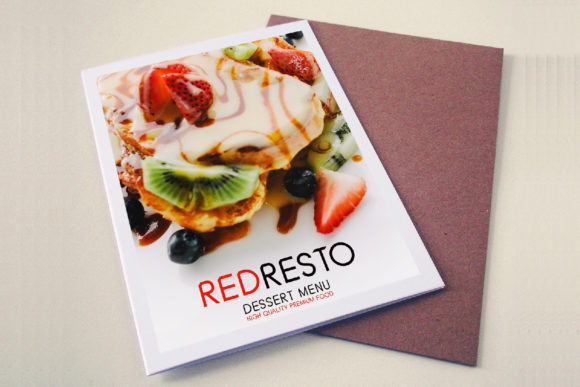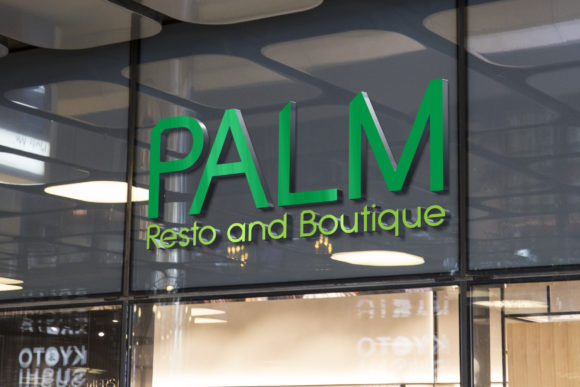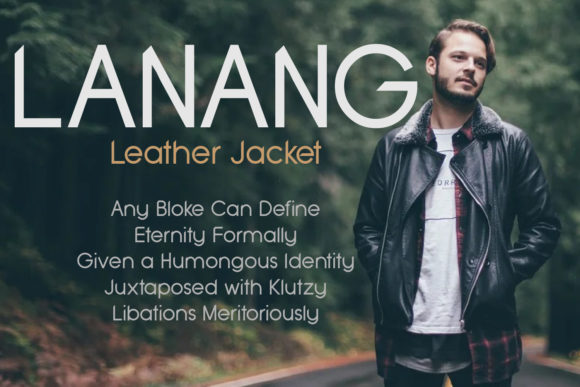
Unlock Your Creativity with Four Play Font
Introducing Four Play Font, a modern and simple lettered sans serif font designed to elevate your creative projects. Its clean lines and versatile style make it the perfect addition to any design, whether you’re working on a logo, brochure, or social media campaign. By incorporating Four Play Font into your designs, you’ll notice a significant boost in visual appeal and overall impact.
Four Play Font Key Features
- Font Family: Four Play is a sans-serif font family designed for digital use.
- Font Size: Four Play is available in 4 different font sizes: Four Play Light, Four Play Regular, Four Play Medium, and Four Play Bold.
- Resolution: Four Play is optimized for use at high resolutions, making it ideal for digital displays and print materials.
- Unique Characteristics: Four Play features a unique blend of geometric and rounded shapes, giving it a friendly and approachable feel.
- Language Support: Four Play supports a wide range of languages, including Latin, Cyrillic, and Greek scripts.
Designer Review: Four Play Font
As a designer, I’ve had the chance to work with Four Play Font, and I must say, it’s a unique and intriguing typeface. ✨ One of the things that stands out about Four Play is its versatility – it can work beautifully in a variety of contexts, from body text to headlines.
- ✨ Great for creating a sense of playfulness and whimsy: Four Play’s unusual letterforms and shapes make it perfect for adding a touch of personality to your designs.
- ✨ Highly customizable: The font includes a range of weights and styles, making it easy to adjust the look to suit your needs.
- ✨ Works well in digital and print contexts: I’ve used Four Play in everything from website headers to print materials, and it’s always performed well.
However, there are a few limitations to keep in mind. ⚠️ One of the main issues is that the font can be quite difficult to read in small sizes – if you’re planning to use it for body text, make sure to use a decent font size to avoid any readability issues.
Overall, I’m impressed with Four Play Font. It’s a great choice for designers who want to add a bit of personality to their work, and its versatility makes it a great addition to any design toolkit. However, it’s not without its limitations – be sure to keep those in mind when deciding whether to use it in your next project.
The Four Play Font is a versatile font that can be used in a variety of applications, including:
- Wedding invitations and decorations
- Party and event flyers
- Personalized gifts and stationery
For the best results, use the Four Play Font in bold or italic styles to add emphasis and create visual interest.